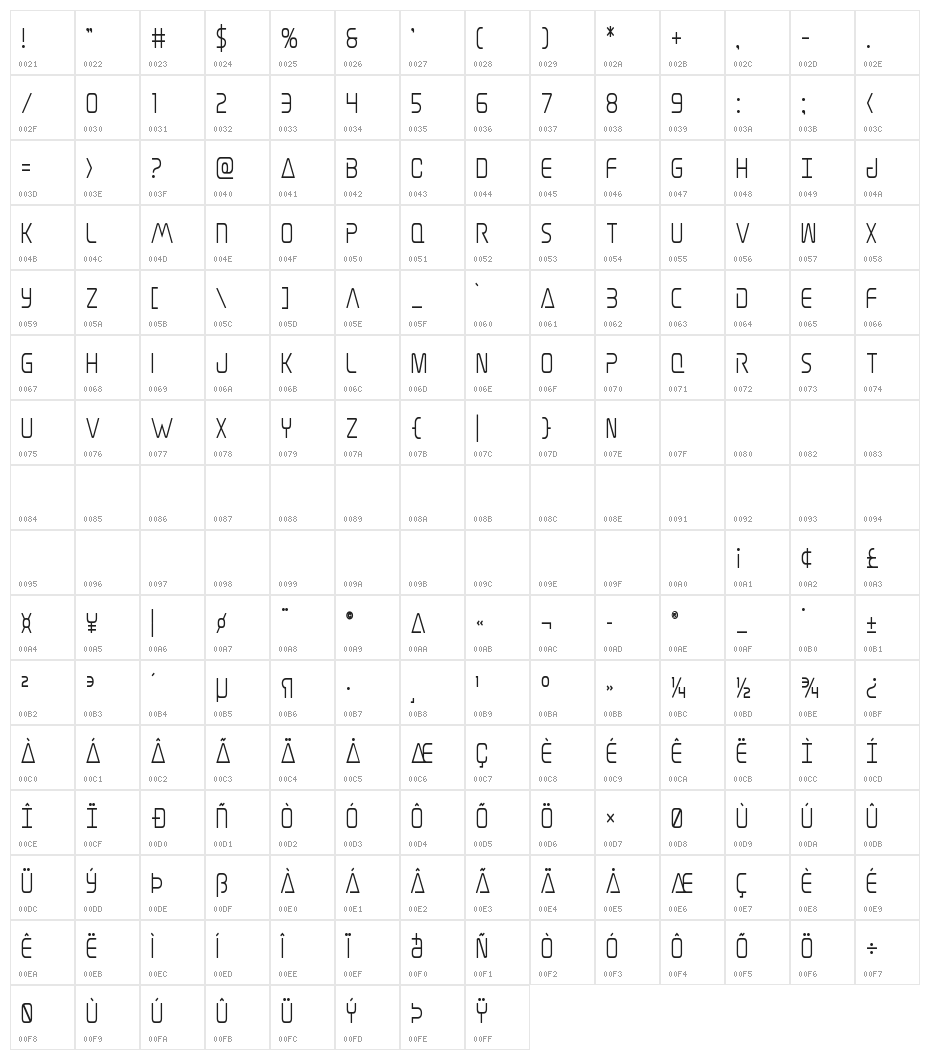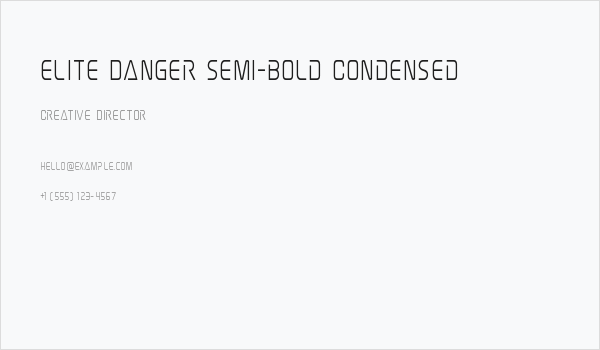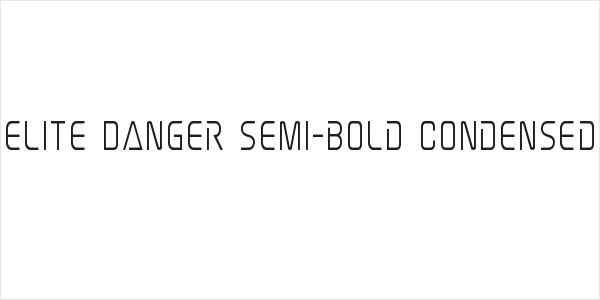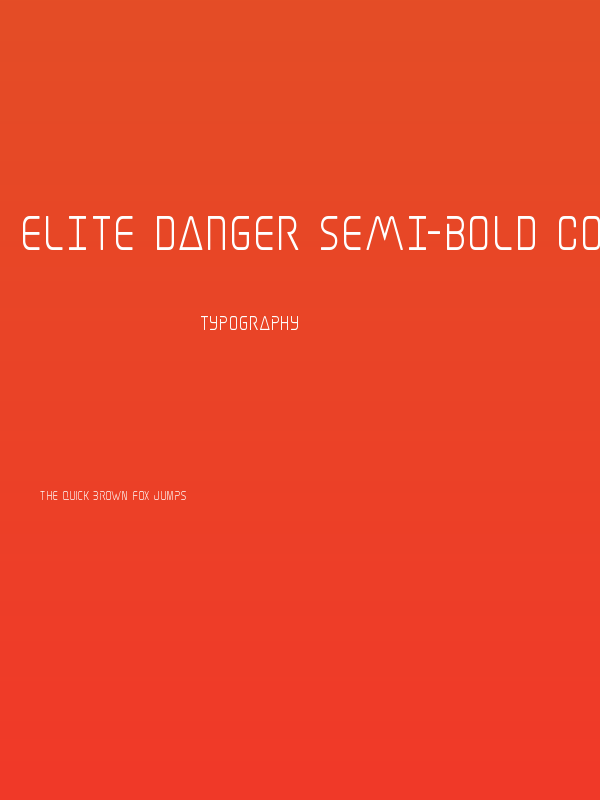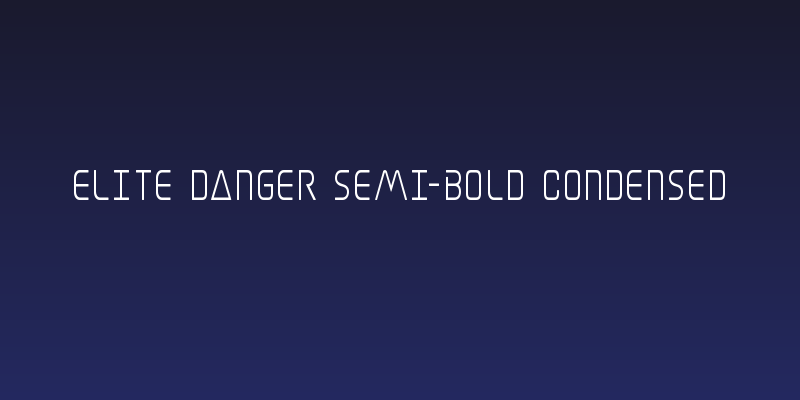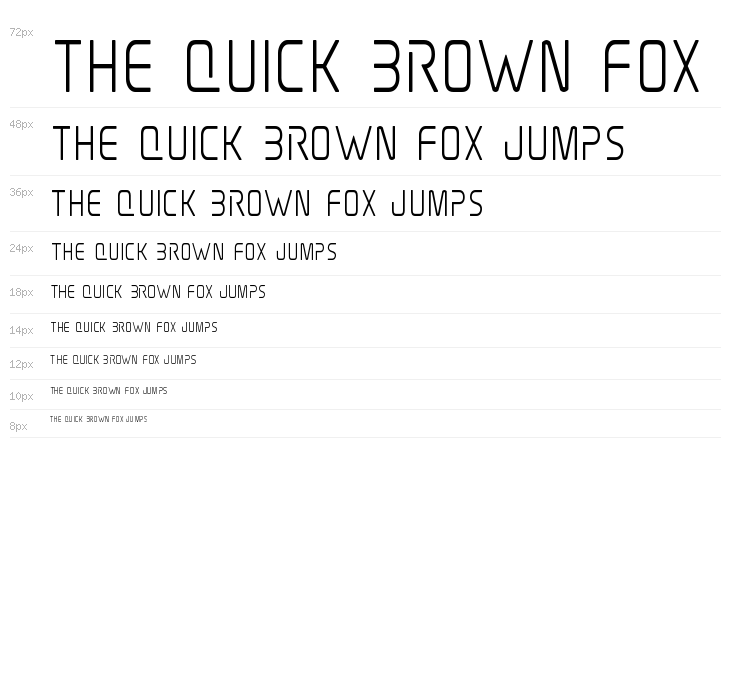
Elite Danger Semi-Bold Condensed Font
Elite Danger Semi-Bold Condensed Description
This font features a modern, geometric design with a semi-bold weight and condensed width. The characters are constructed with clean, straight lines and sharp angles, giving it a futuristic and technical appearance. The uppercase letters are uniform in height, while the lowercase letters maintain a consistent style that complements the uppercase set. The numerals are clear and legible, matching the overall aesthetic of the font. Special characters are included, maintaining the same geometric style, making it versatile for various uses.